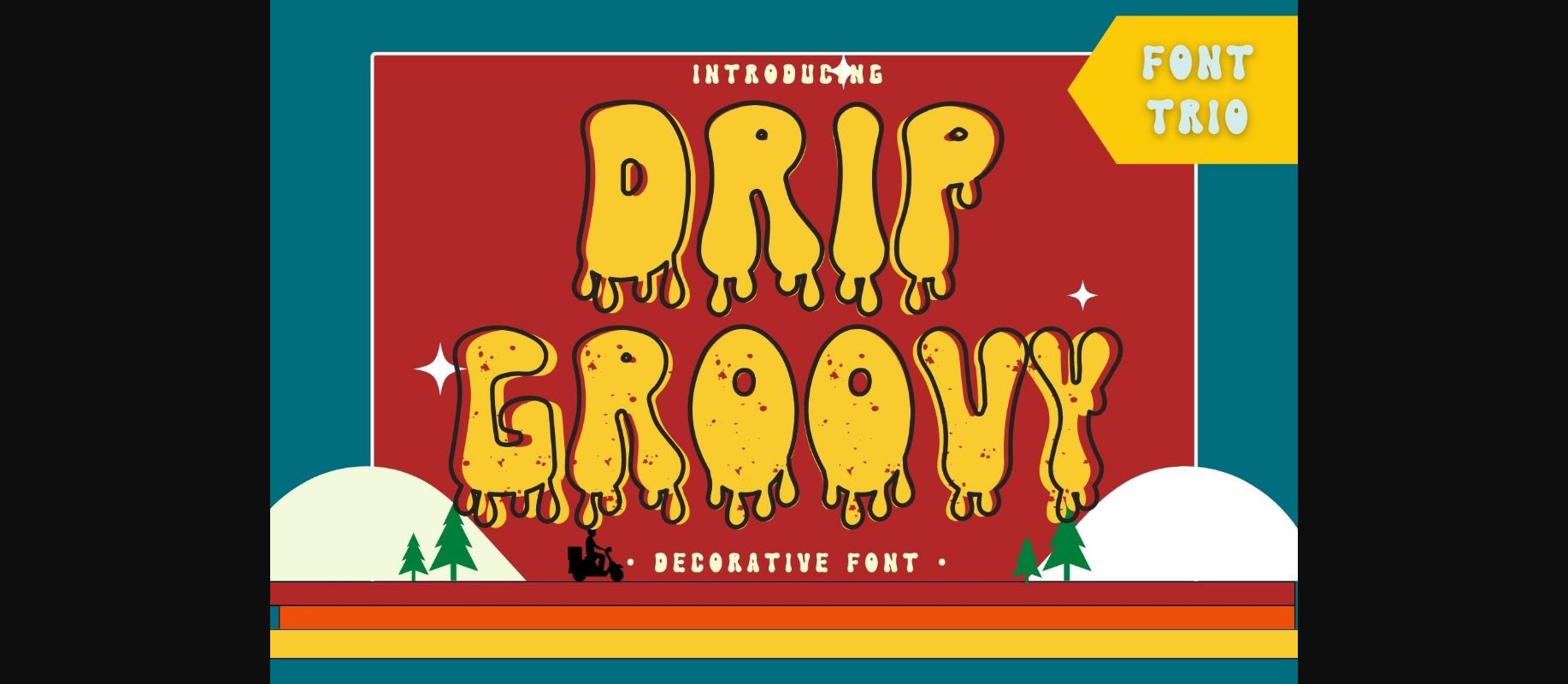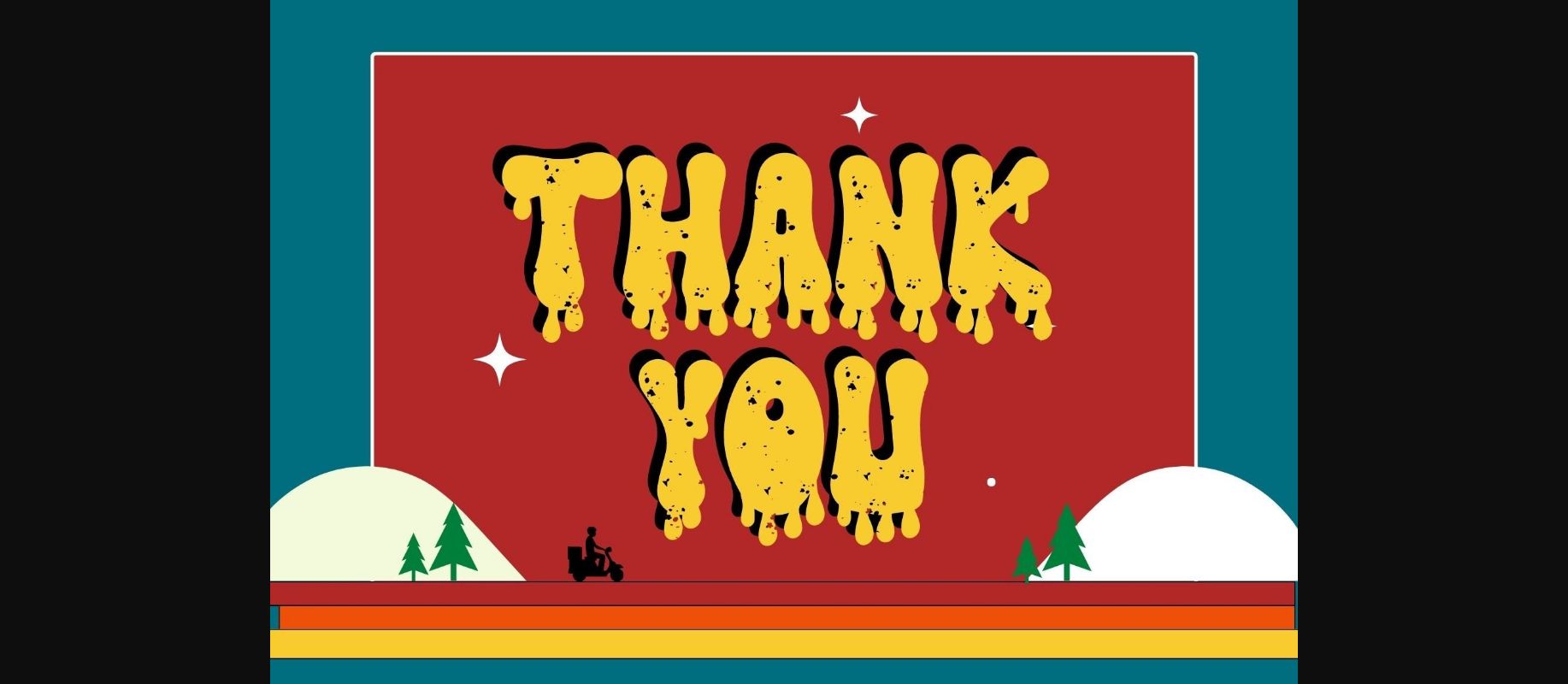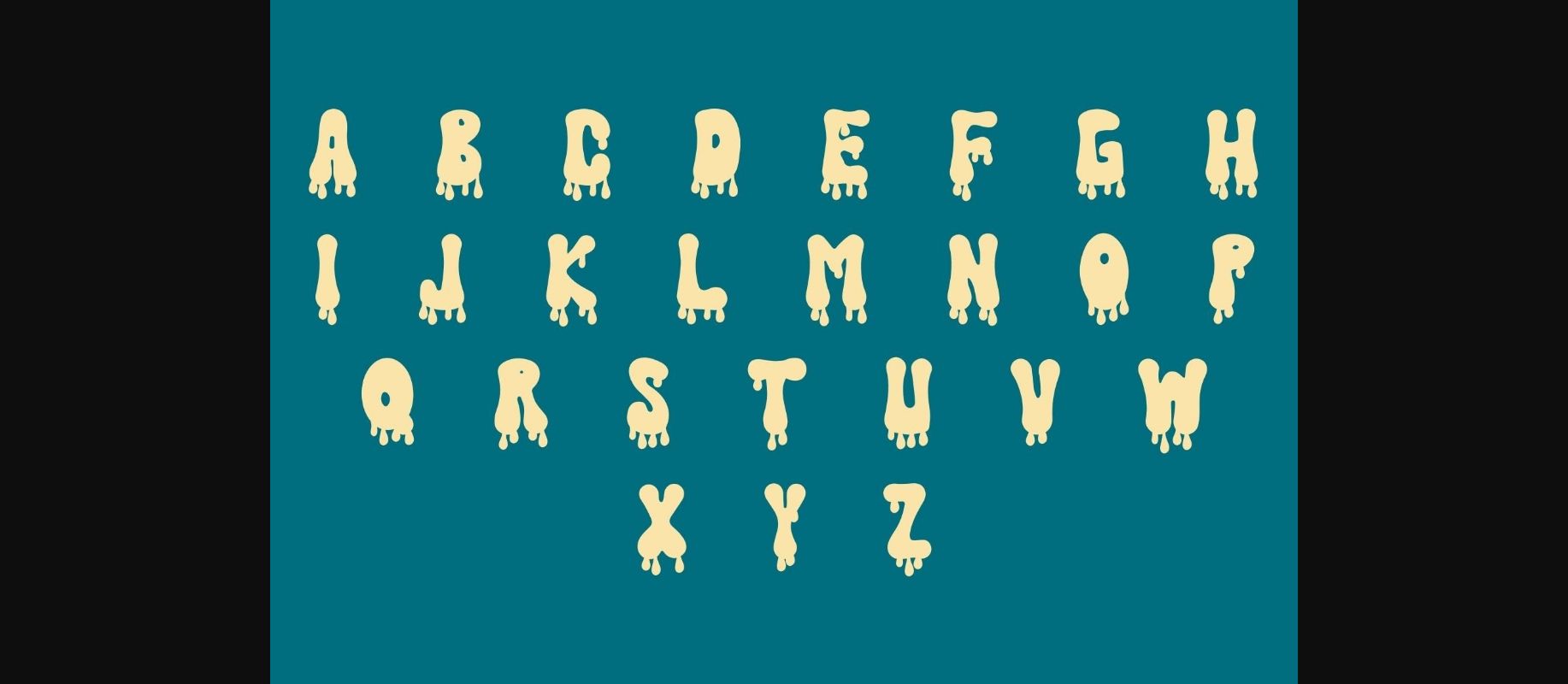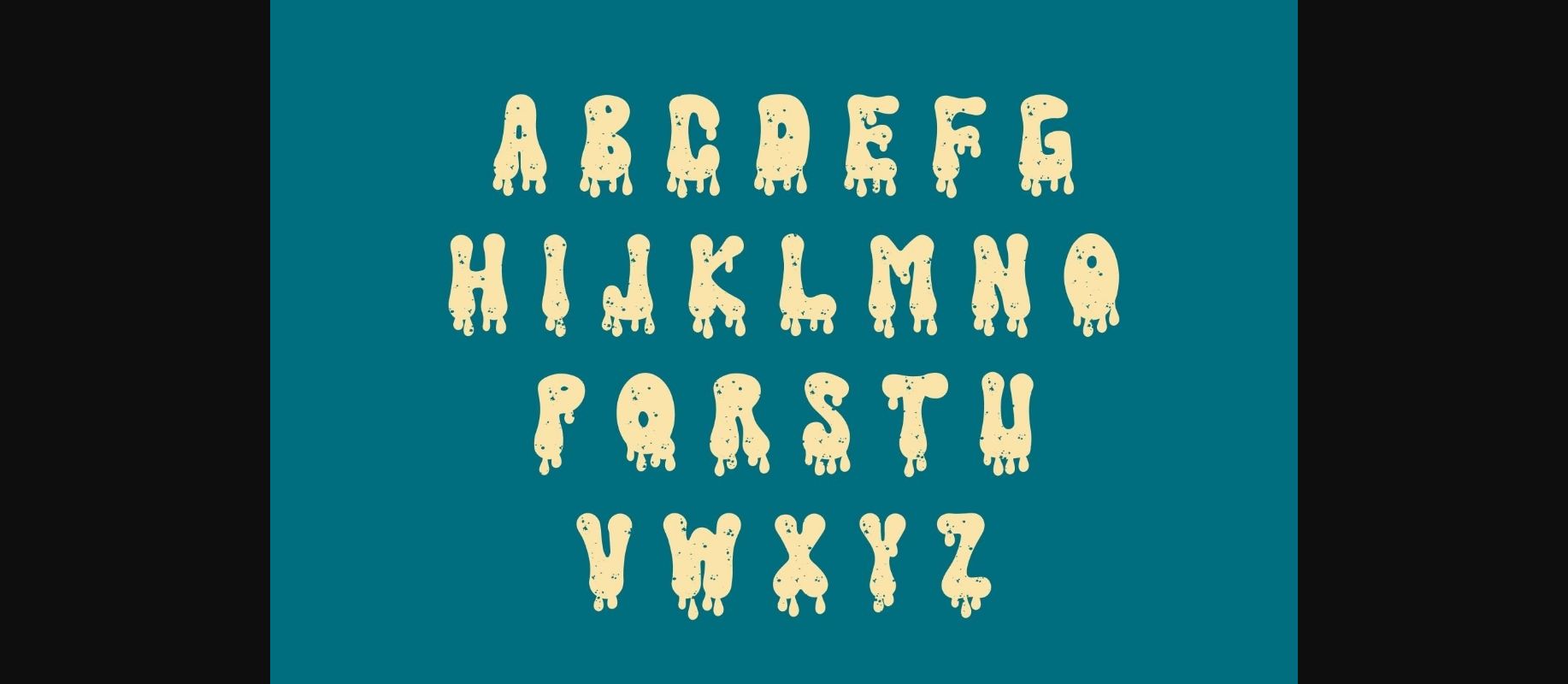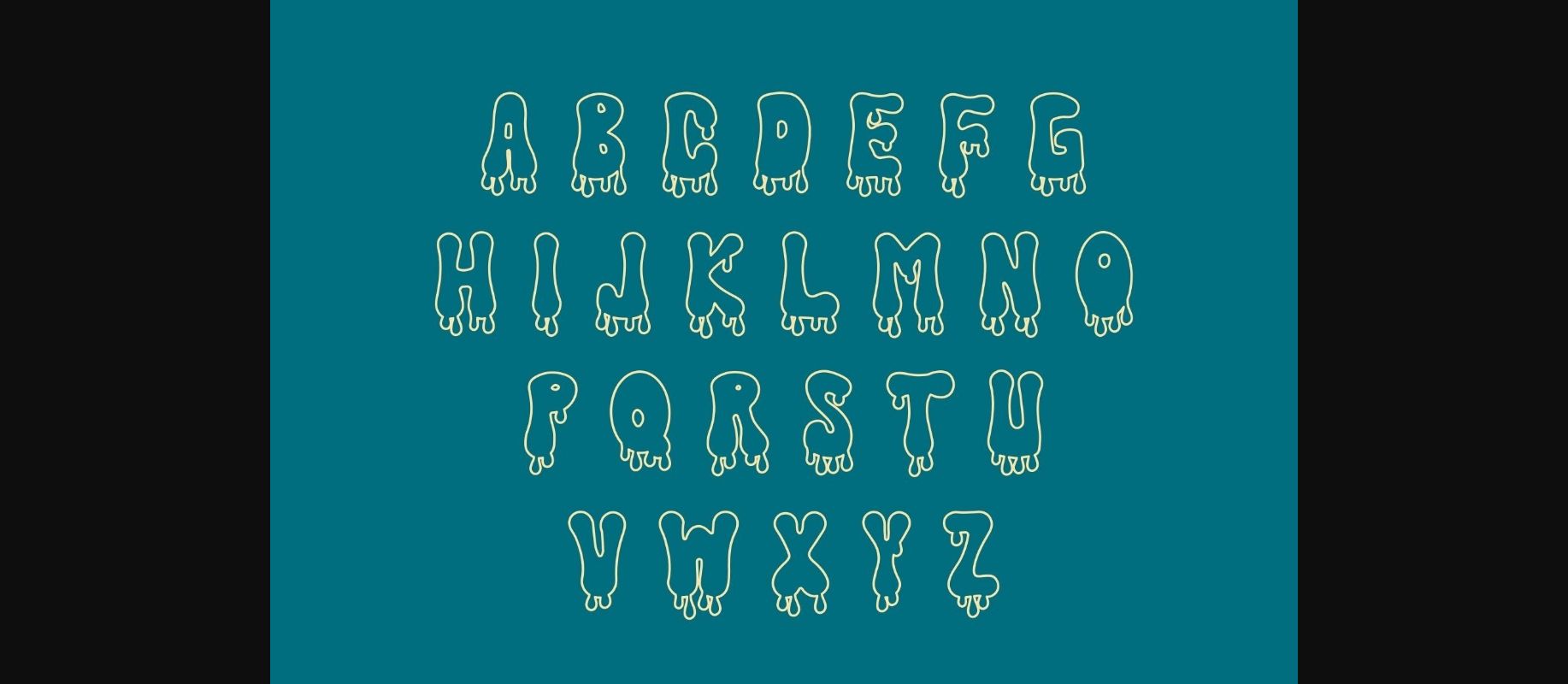
About Drip Groovy Font
Drip Groovy is a retro and fun decorative font. It embodies playfulness and authenticity and is the perfect choice for various projects such as blog posts, logos, branding, ads, invitations, greeting cards, planners, photo albums, decorations, and much more. Add it to any of your designs, and enjoy the results!